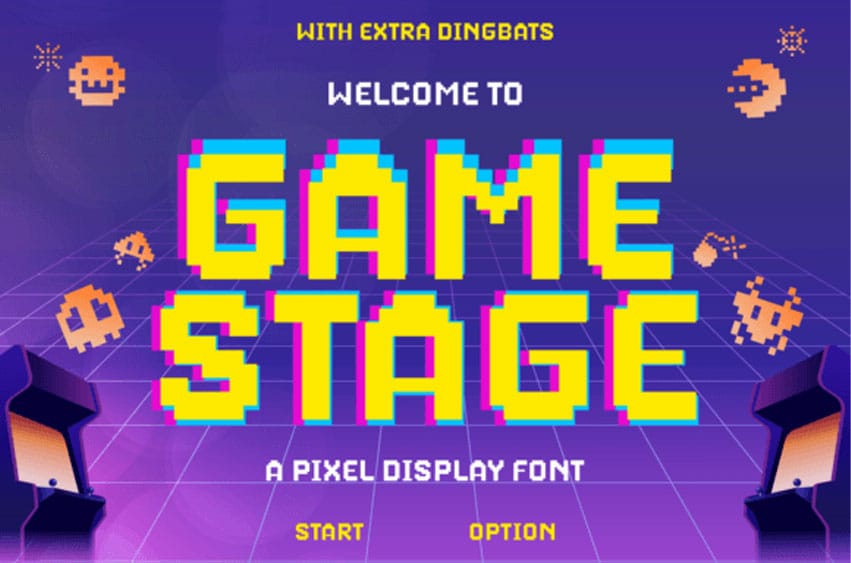
Game Stage Font is an arcade display font that has a unique and playful style. Its chunky shapes and playful angles exude a sense of fun and excitement, while its bold strokes and bright colors add a touch of personality and vibrancy.
This font adds a playful and nostalgic touch to any project. This font is PUA encoded, which means you can access all glyphs and swashes effortlessly!